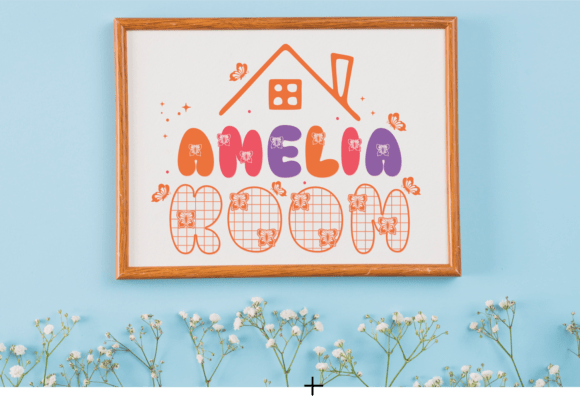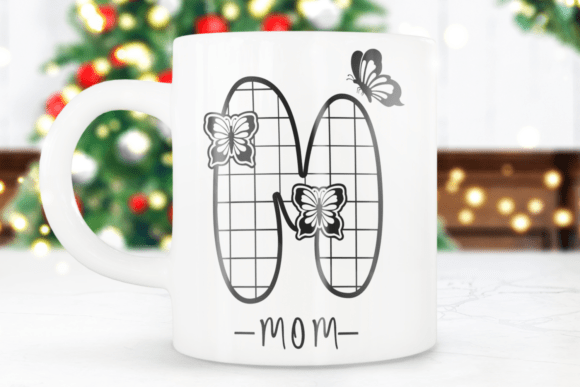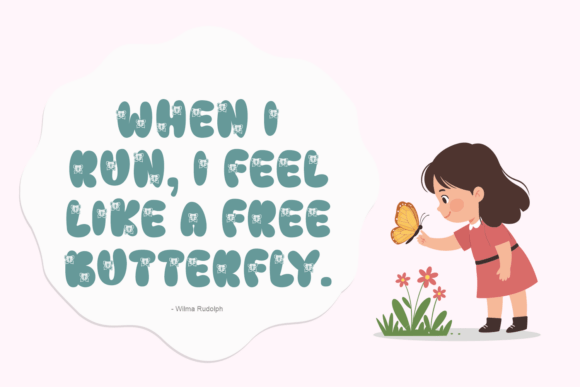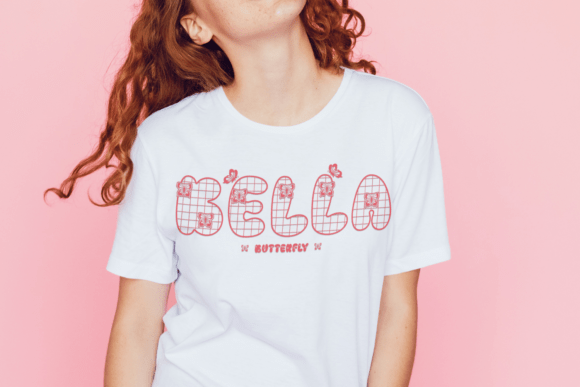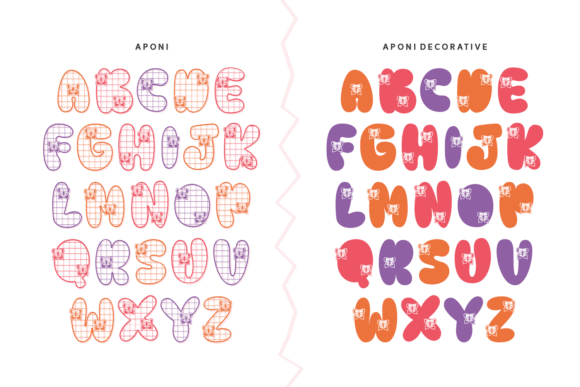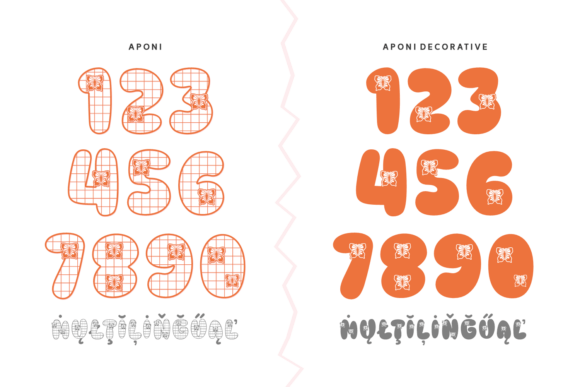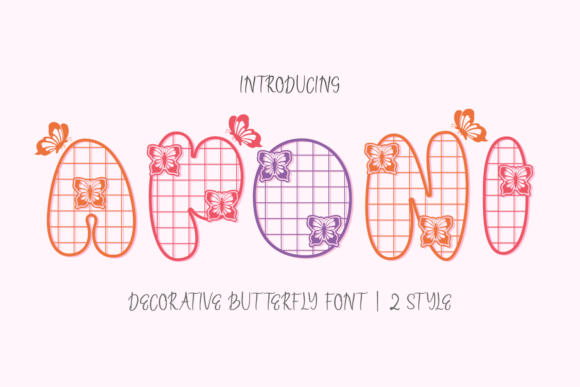
Discover the Whimsical Charm of Aponi Font
As a designer, I’ve had my fair share of moments where finding the perfect font felt like searching for a needle in a haystack. I recall working on a children’s book project, wanting a font that would transport readers to a magical world. That’s when I stumbled upon Aponi Font, a delightful decorative font that instantly captured my heart. In this article, I’ll share my journey with Aponi, its features, and how to make the most of this beautiful font.
A Personal Encounter with Aponi
I was working on a whimsical children’s book, and my client wanted a font that would evoke a sense of fantasy and wonder. After hours of browsing through font libraries, I finally stumbled upon Aponi. Its playful outline and bold, solid versions immediately caught my attention. The intricate butterfly motifs and delicate grid pattern seemed to dance on my screen, and I knew I had found the perfect fit.
An Honest Review of Aponi Font
What I Love About Aponi ✨
• ✨ Whimsical and charming design, perfect for projects that require a touch of fantasy
• ✅ Two delightful styles: playful outline and bold, solid version
• 🌸 Intricate butterfly motifs that add a sense of airy elegance and joyful movement
• 🎨 Vibrant, multi-colored palette that evokes a feeling of springtime bliss and creative freedom
• 🔍 PUA encoding included, making special characters and decorative elements easily accessible
While Aponi is an amazing font, there are a few things to keep in mind:
• ⚠️ The font’s playful nature might not be suitable for formal or professional projects
• 🤔 Some characters might require manual kerning for optimal spacing
The Story Behind Aponi Font
Aponi Font was inspired by the gentle flight of butterflies and the beauty of nature. Its creator aimed to capture the essence of springtime bliss and creative freedom, crafting a font that would bring joy and whimsy to typography. While the actual designer remains a mystery, their passion for nature and fantasy shines through in every detail of Aponi.
Q: Is Aponi Font suitable for children’s books and educational materials?
A: Yes, Aponi’s playful and whimsical nature makes it an excellent choice for children’s books, educational materials, and other projects that require a touch of fantasy.